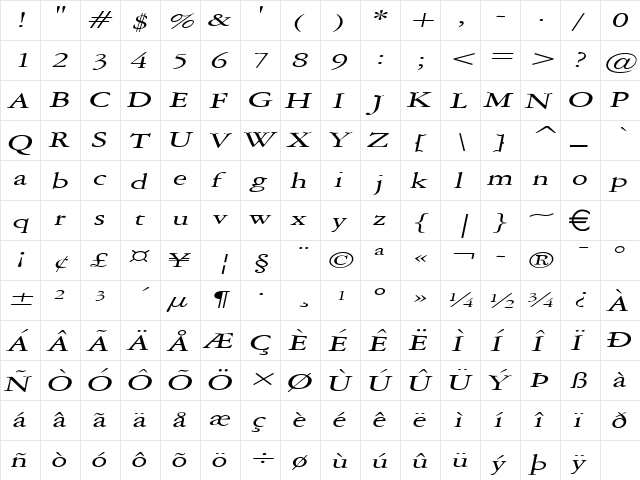
AmethystExtended Italic Font Preview
AmethystExtended Italic
AmethystExtended Italic Font Details
Design Context for AmethystExtended Typeface
AmethystExtended takes a measured approach to typography — its balanced proportions and neutral character make it a reliable workhorse for both digital and print work. The dynamic lean of this cut emphasises speed and emphasis in any layout.
Pro Tip: Try AmethystExtended for annotation and caption copy alongside an upright companion — the contrast in angle creates a dynamic but ordered typographic system.